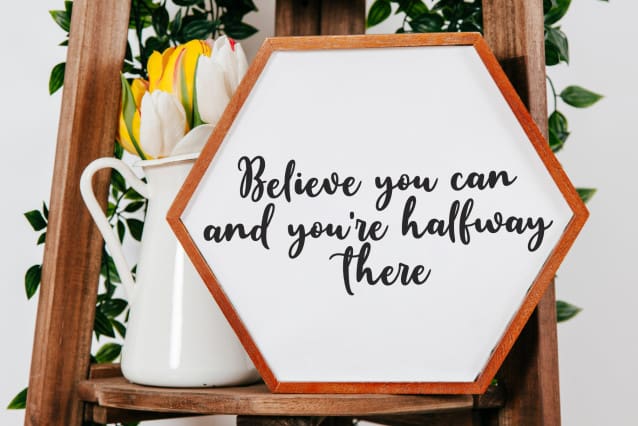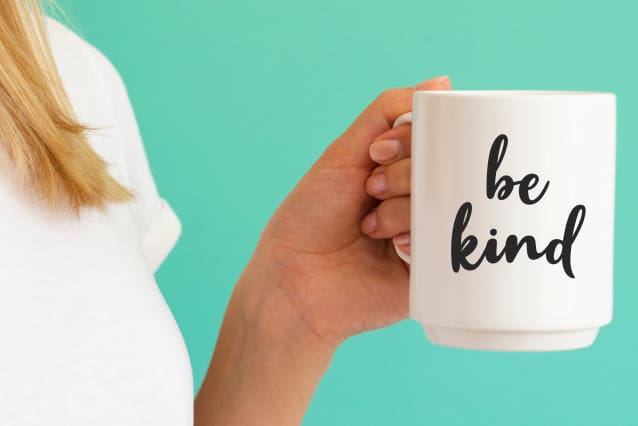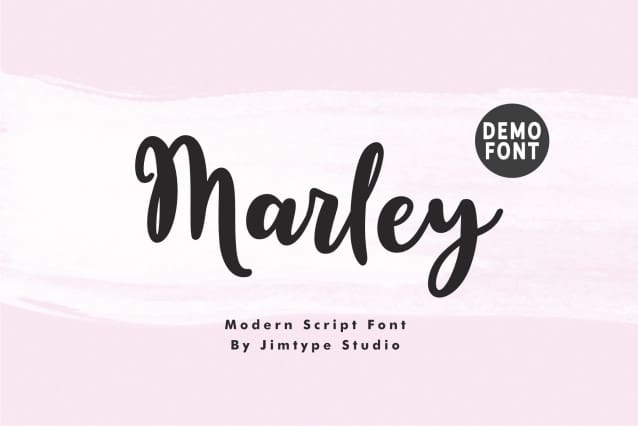
Marley Script Font
Marley Script Font – Cute Branding Font from Jimtype Studio. Marley Script Font – where modernity meets the grace of script typography! Perfect for crafting a distinctive brand identity or adding a contemporary flair to your projects. ‘Marley Font’ is designed for those who seek a blend of sophistication and creativity. Explore our font collection and elevate your designs with the distinctive charm of ‘Marley Font.